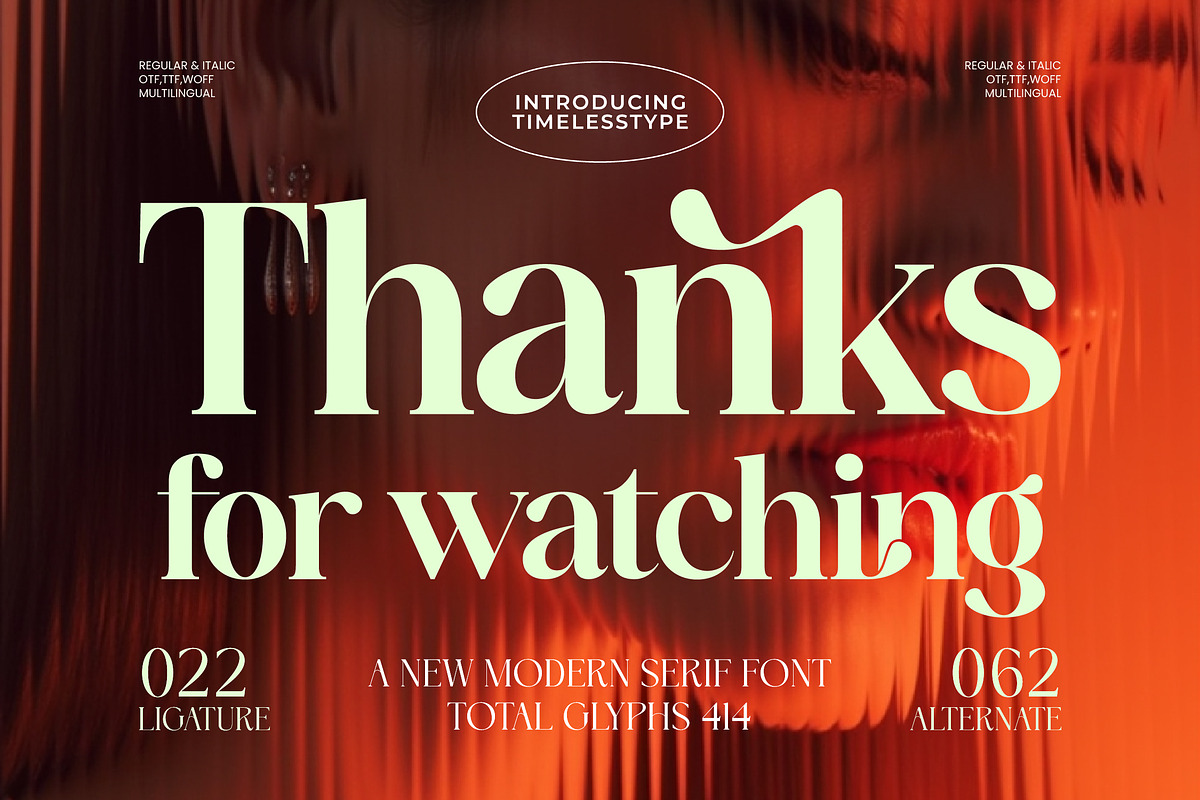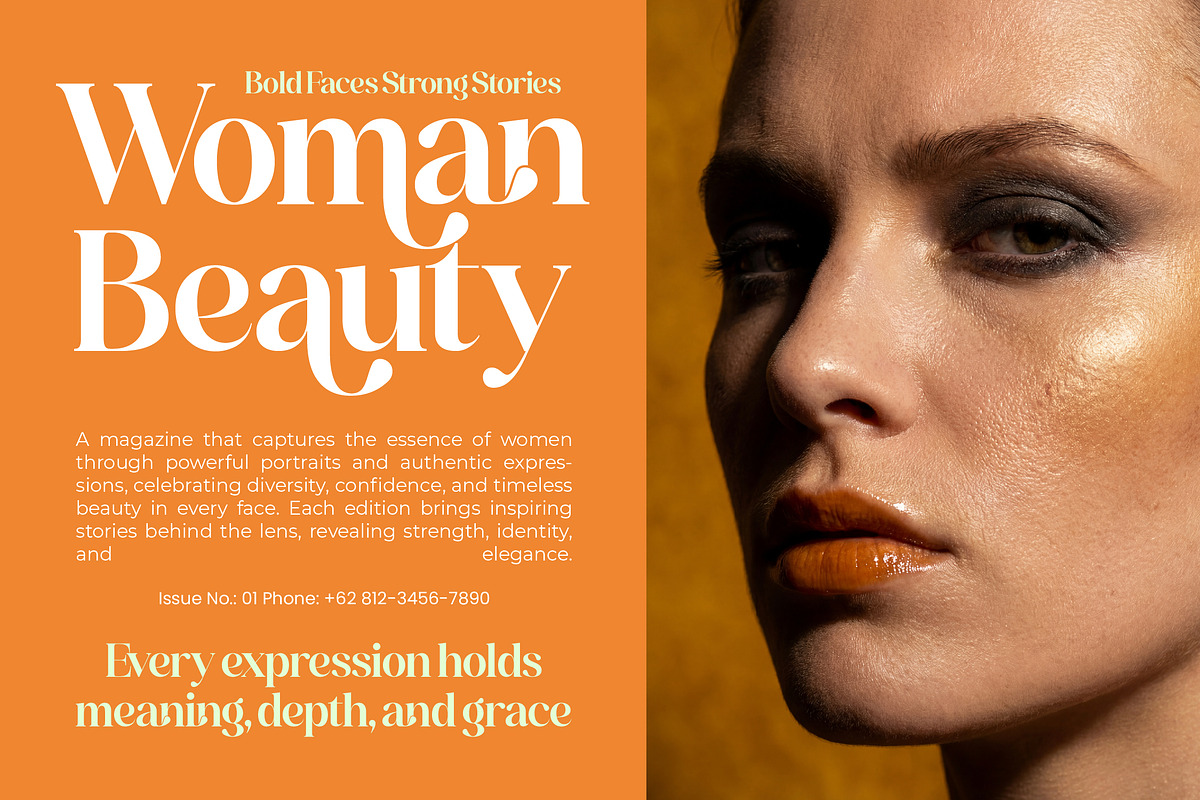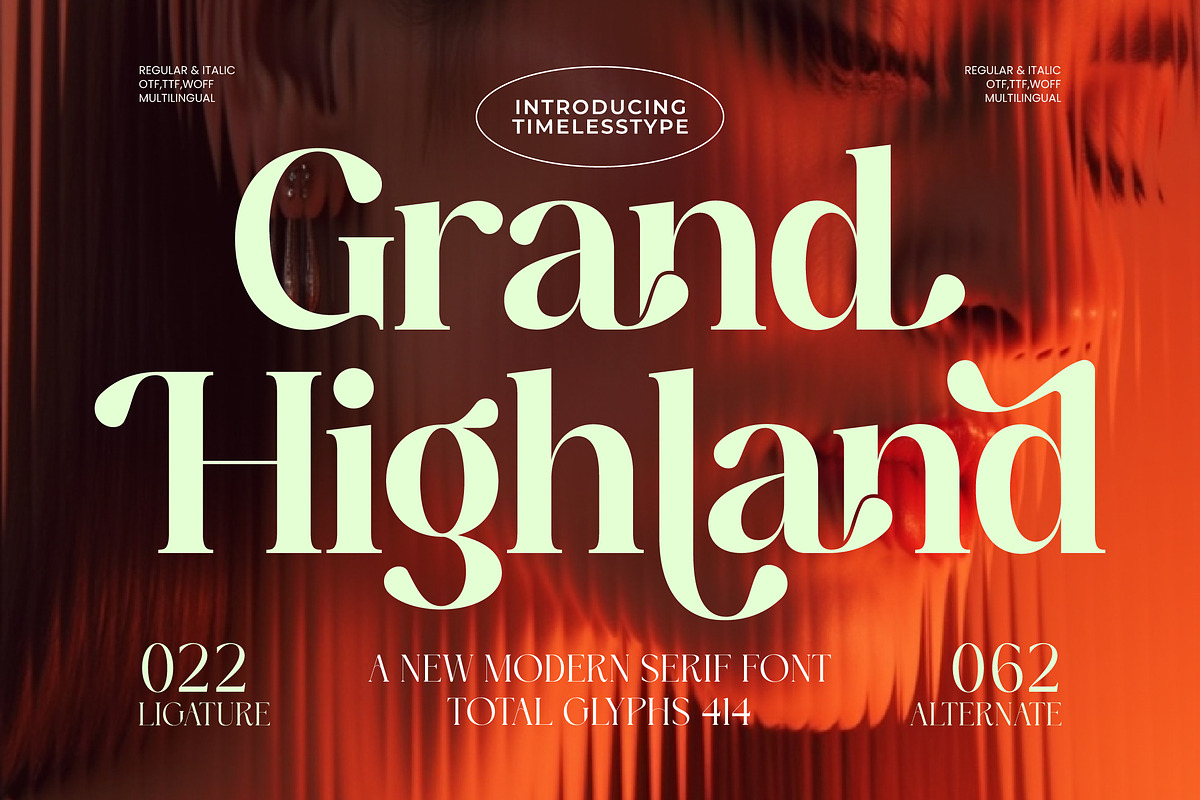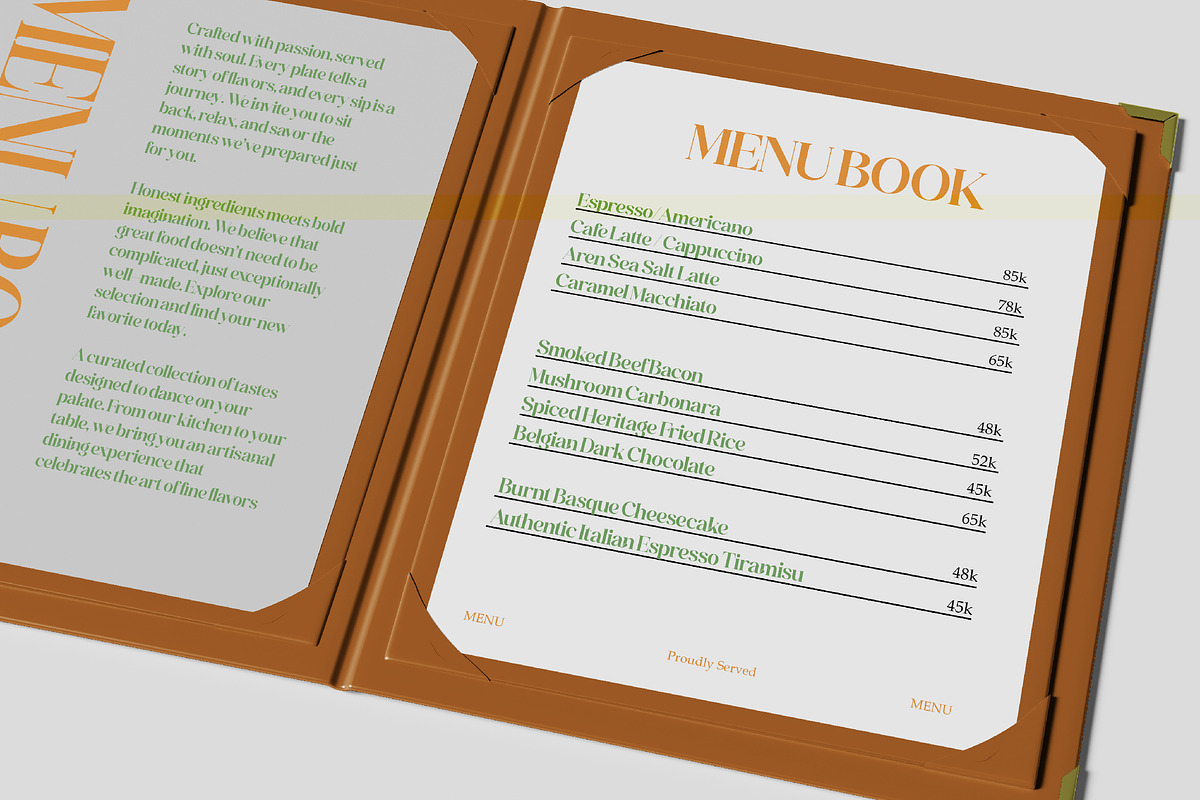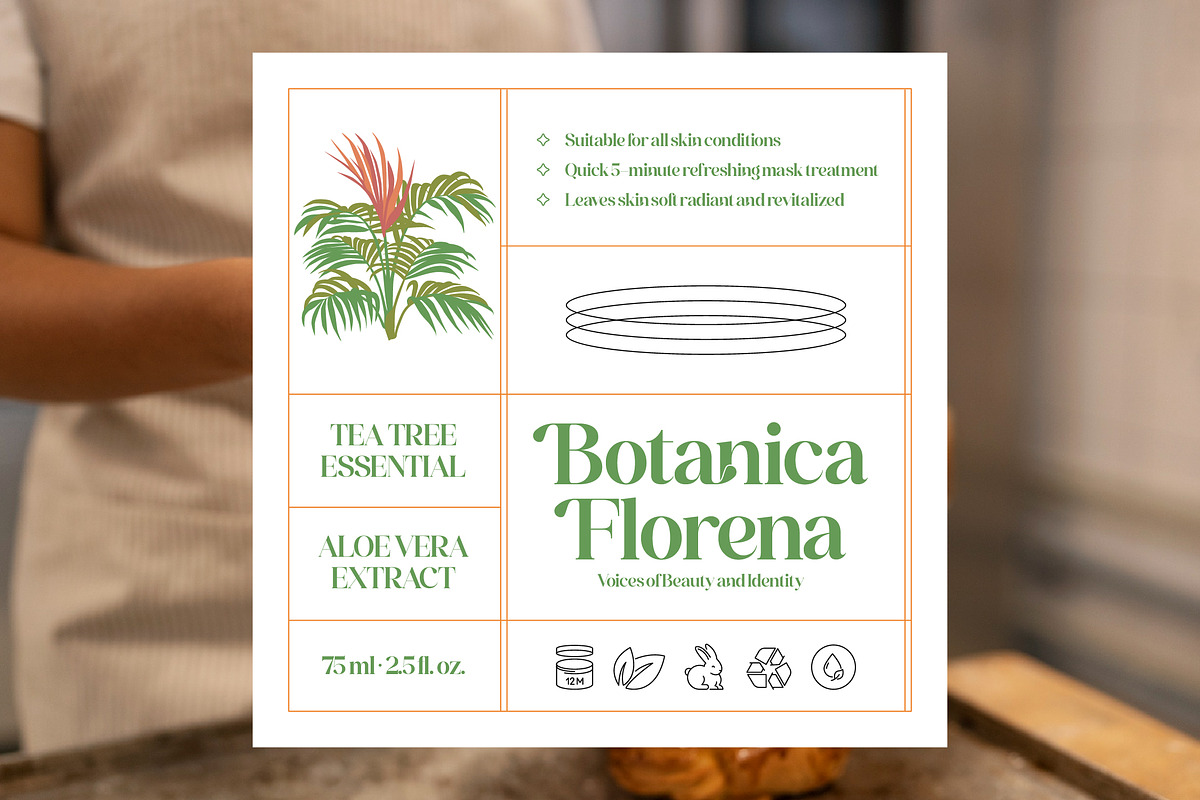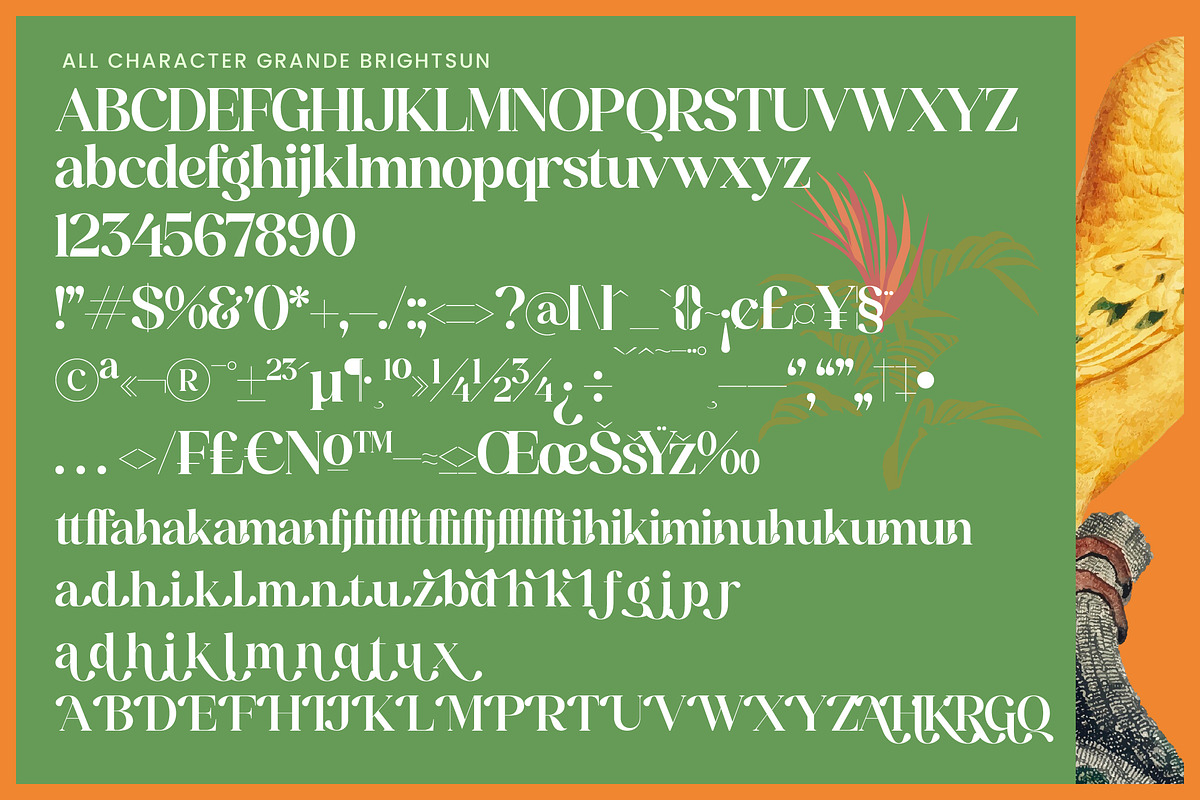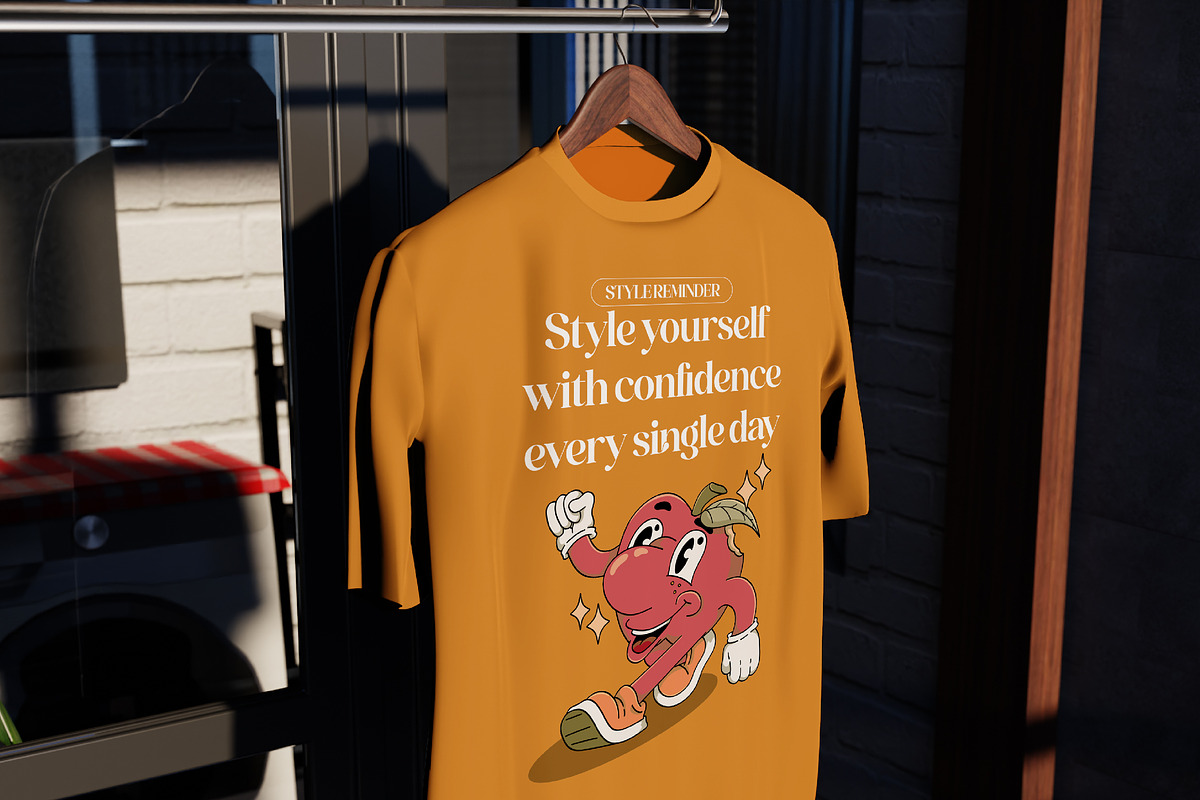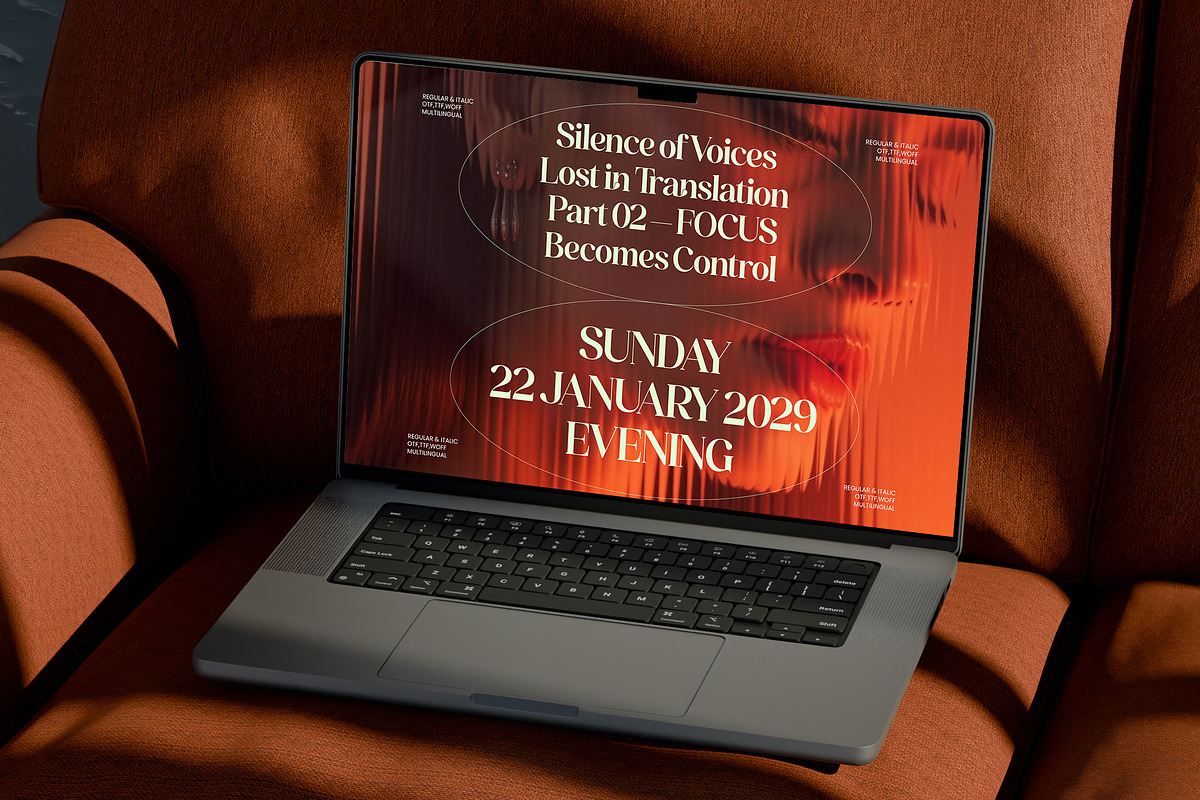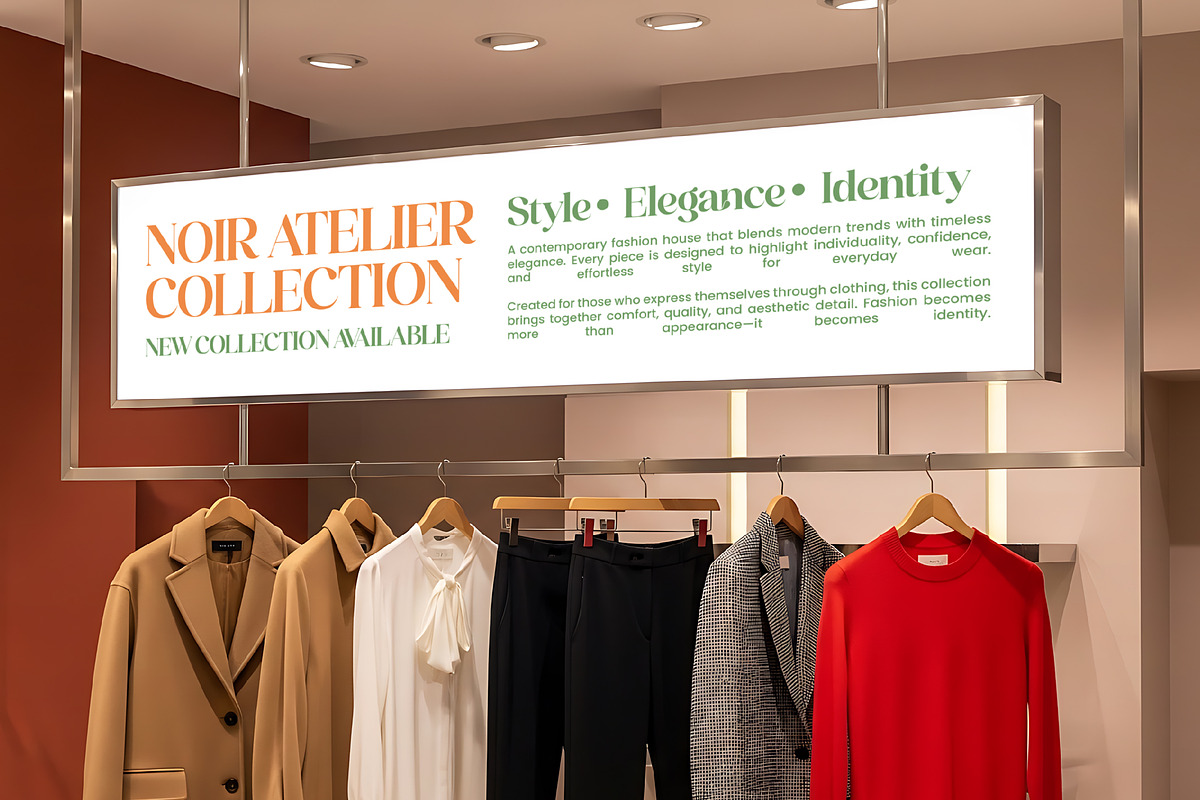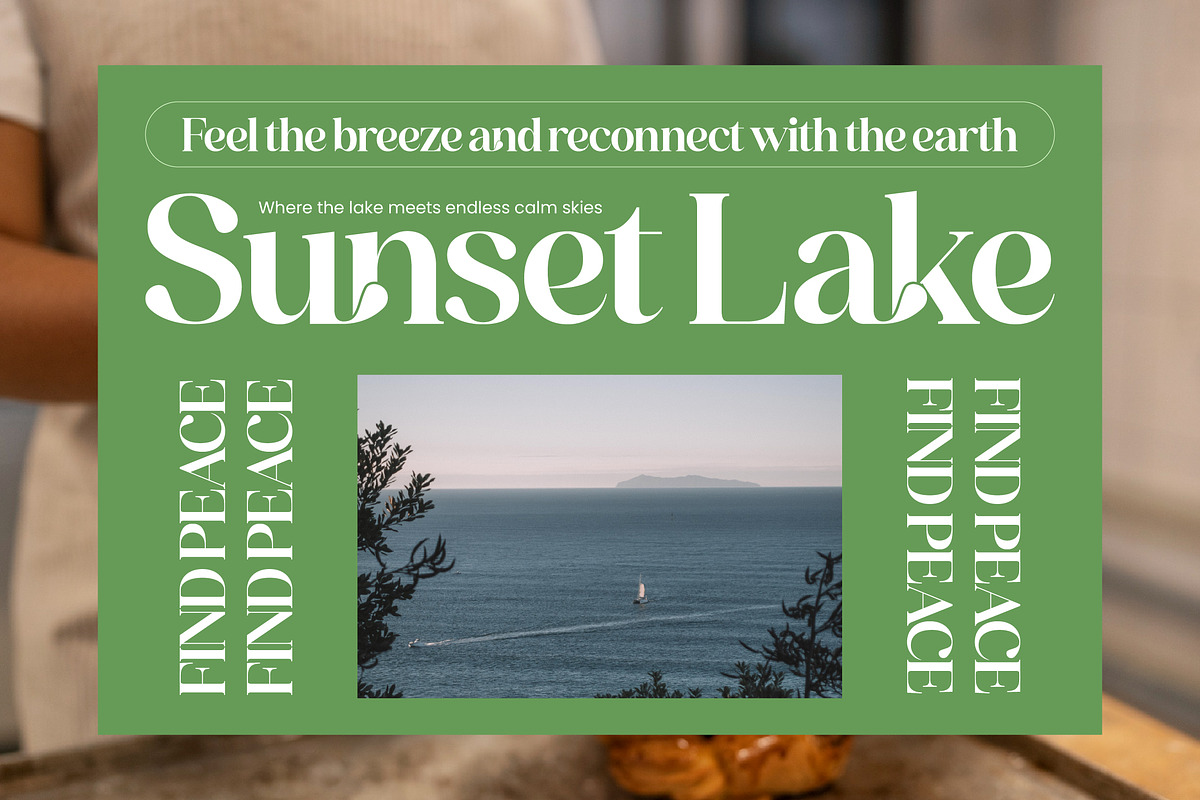
Grand Highland Modern Serif Font
Grand Highland – Modern Serif Font , Elevate your visual identity with an air of sophisticated elegance and timeless appeal. The Grand Highland – Modern Serif Font is a masterpiece of high-contrast design, blending sharp serifs with graceful, flowing curves. This premium typeface captures a contemporary aesthetic that is both bold and inviting, making it the definitive choice for designers who refuse to compromise on style or substance.
Experience the perfect harmony of fluid motion and structural precision through an extensive library of features. With 414 total glyphs, including 22 unique ligatures and 62 stylistic alternates, Grand Highland – Modern Serif Font offers endless creative possibilities for custom layouts. Whether utilizing the Regular or Italic styles, this versatile font provides the tools necessary to craft visually stunning compositions that resonate with a high-end audience.
Command attention on a global scale with unmatched linguistic flexibility and technical reliability. With its extensive multilingual support, Grand Highland – Modern Serif Font adapts seamlessly across global markets, making it incredibly versatile for international projects. This adaptability ensures that your message remains clear and impactful, regardless of the region or language, solidifying its place as a workhorse typeface for modern communication.
Transform ordinary concepts into extraordinary brand experiences by choosing the right typographic foundation. The Grand Highland – Modern Serif Font is perfectly suited for luxury branding, high-fashion editorial design, and exclusive packaging. It is also ideal for high-end logos, social media storytelling, and premium advertising where a refined aesthetic is paramount. Invest in this professional font to ensure your brand stands at the forefront of modern design trends.